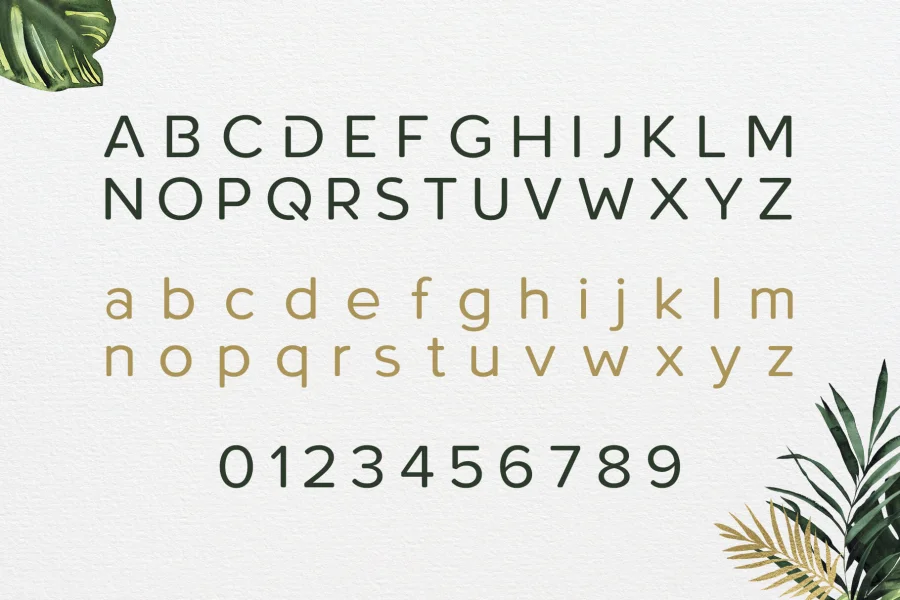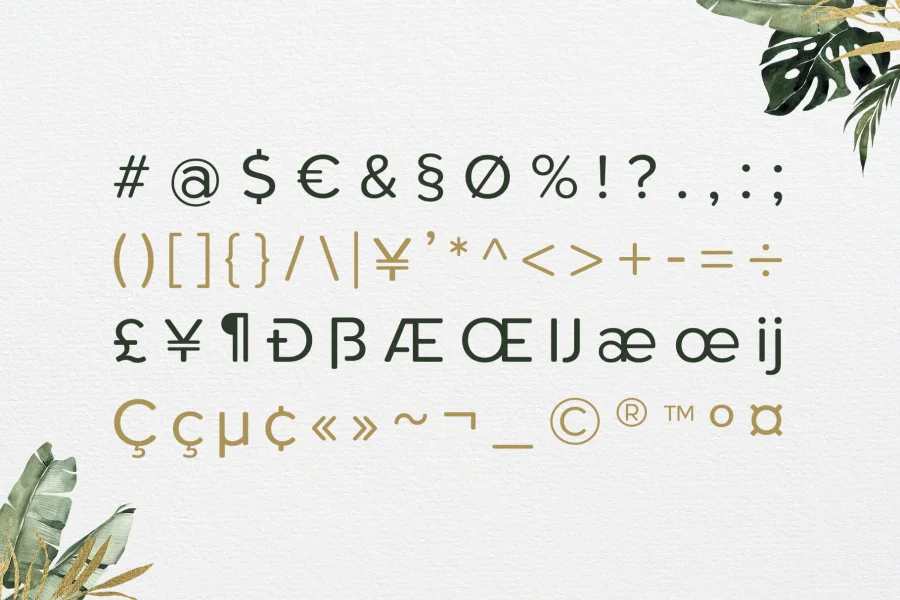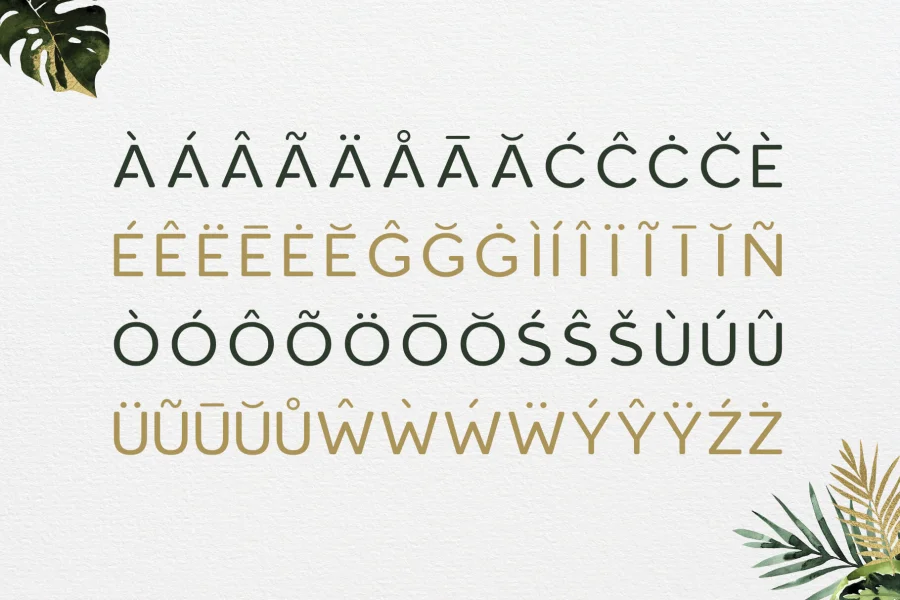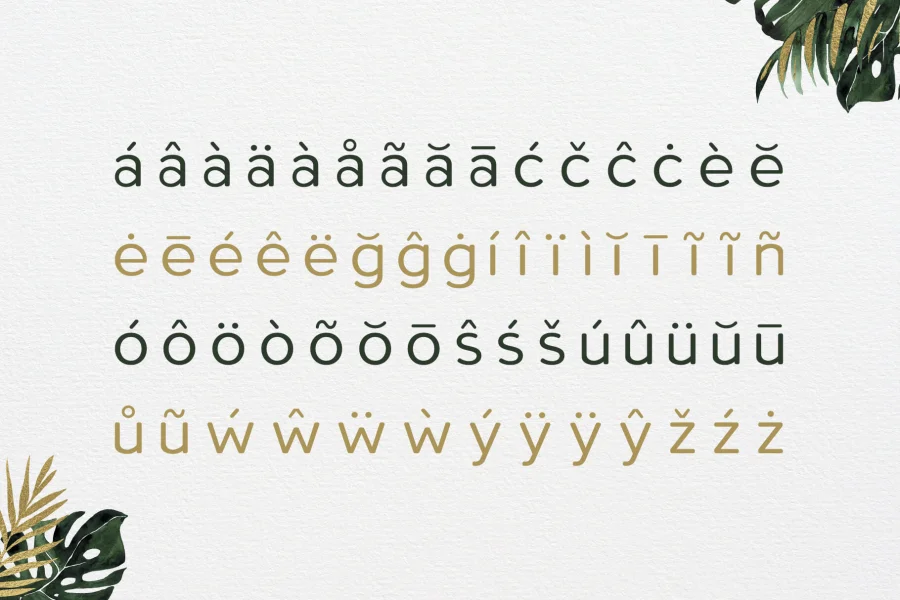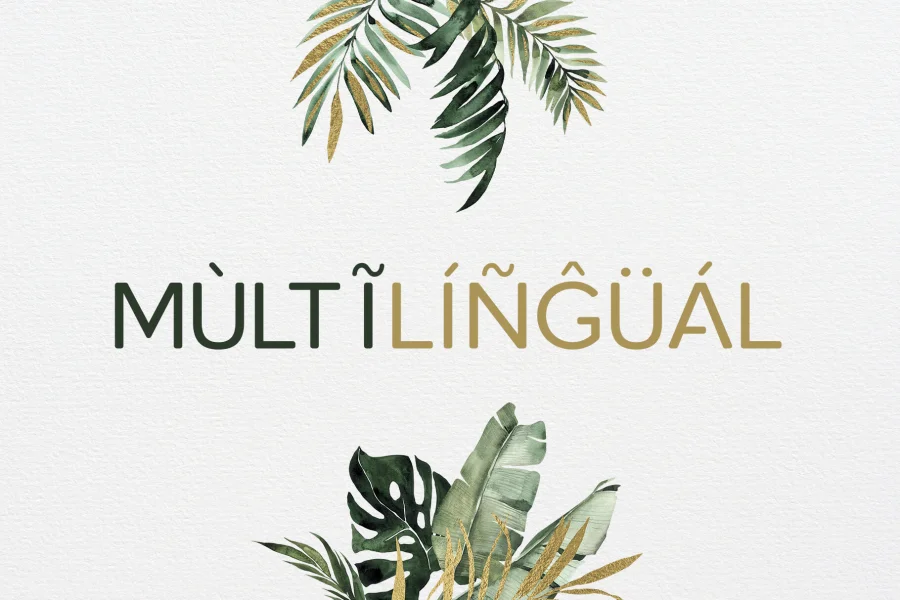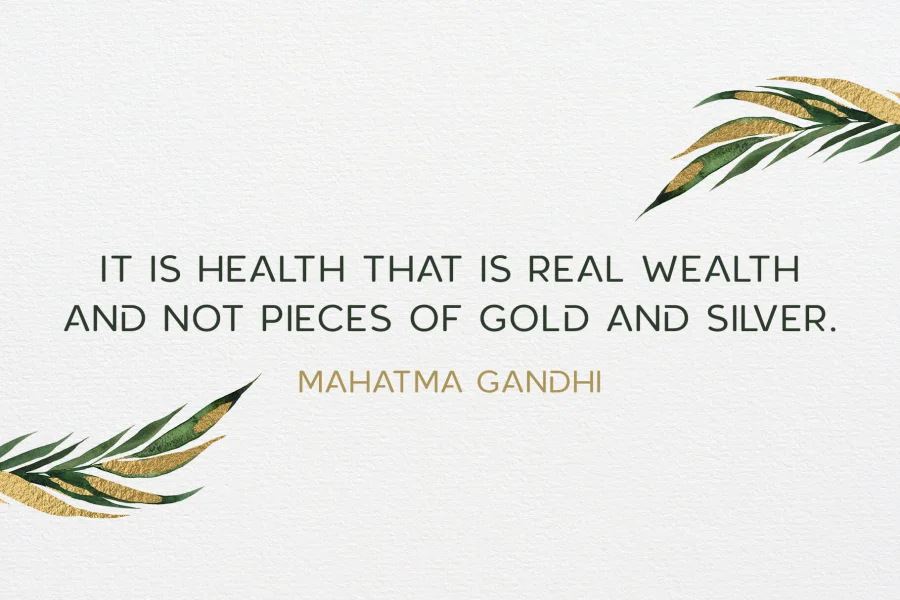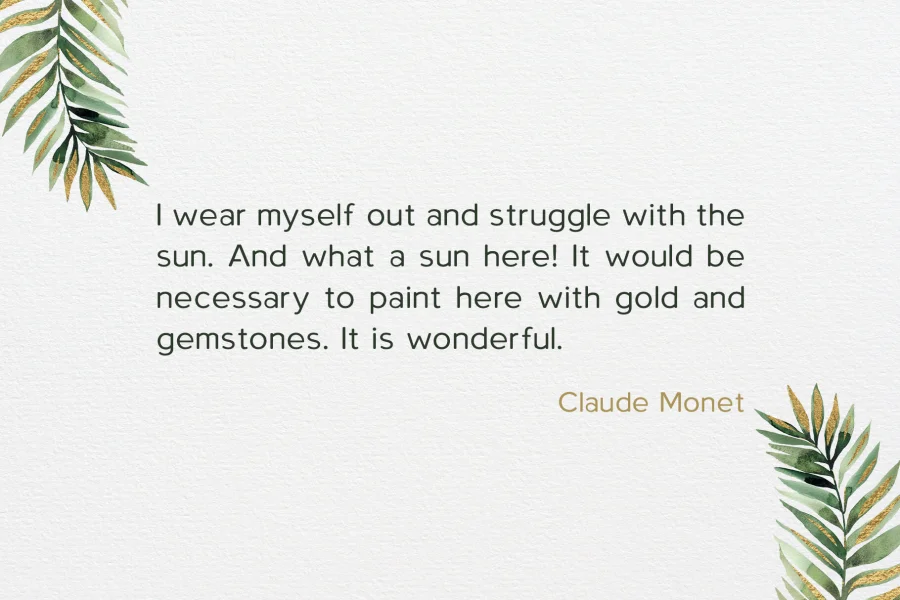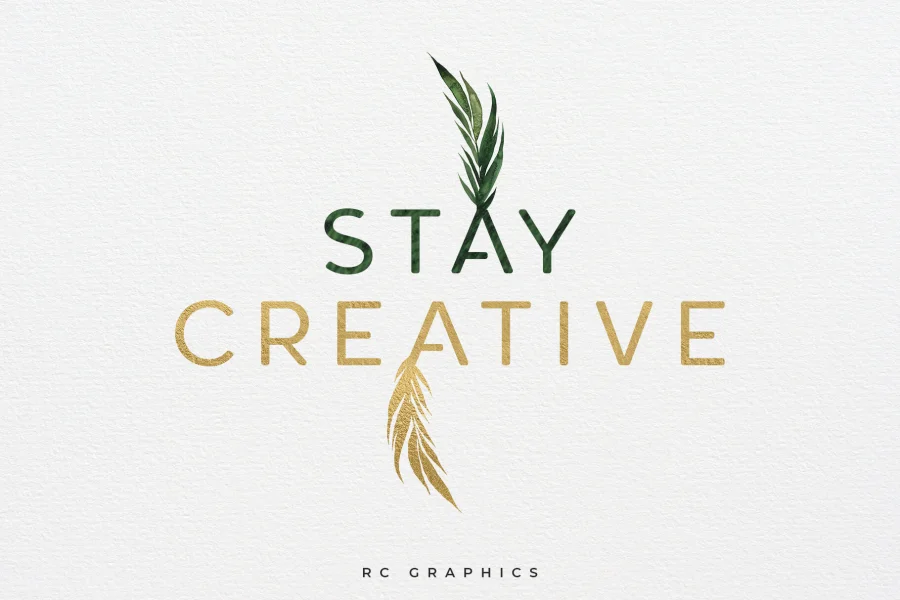
Introducing Roundor - Sans Serif Font
Roundor is an elegant and clean rounded sans serif font. It's a versatile font family designed for strong, classic branding. Roundor works great in any branding, logos, magazines, videos, product packaging, website headers, clothing designs and much more.